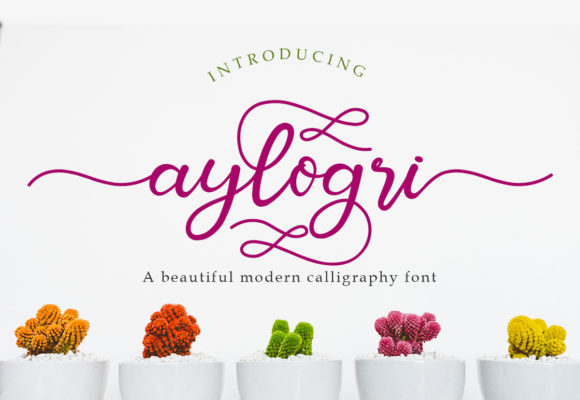
The Romantic Side of Typography: Discovering Aylogri Font
I still remember the time I was working on a wedding invitation project, struggling to find the perfect font that would capture the essence of love and romance. My client wanted something elegant, yet playful, and I was on a mission to deliver. That’s when I stumbled upon Aylogri Font, a beautiful script font that has flowing characters that seemed to dance on the page. It was love at first sight! 💕
Aylogri Font: A Personal Review
As a designer, I’m always on the lookout for fonts that can help me elevate my projects. Here’s my honest review of Aylogri Font:
• ✨ Beautifully crafted flowing characters that exude romance and elegance
• ✅ Perfect for projects that require a touch of sophistication and whimsy
• 💫 Works well for titles, headings, and short paragraphs
• 🎨 Great for designers, crafters, and creative hobbyists who want to add a personal touch to their projects
While Aylogri Font is a stunning script font, there are a few things to keep in mind:
• ⚠️ May not be suitable for very long paragraphs or body text due to its ornate nature
• 🤔 Can be a bit challenging to read at smaller font sizes
The Story Behind Aylogri Font
According to its designer, Aylogri Font was inspired by the beauty of handwritten letters and the romance of the Victorian era. The designer wanted to create a font that would capture the essence of love and elegance, while still being versatile and easy to use.
Font Name Aylogri Font
Author Madatype Studio
Q: What is Aylogri Font?
Aylogri Font is a script font with beautifully flowing characters, perfect for showing off your romantic side!
Q: Is Aylogri Font suitable for body text?
While Aylogri Font is stunning, it may not be the best choice for long paragraphs or body text due to its ornate nature. It’s better suited for titles, headings, and short paragraphs.